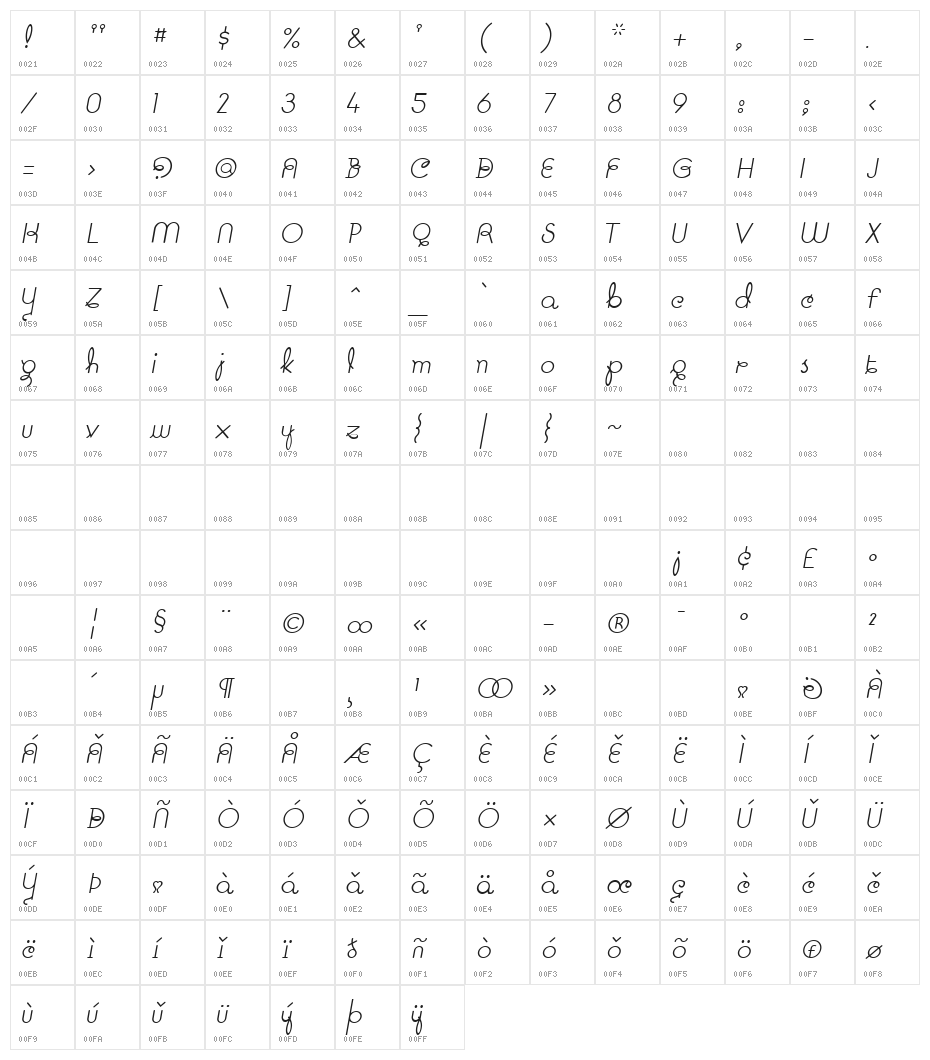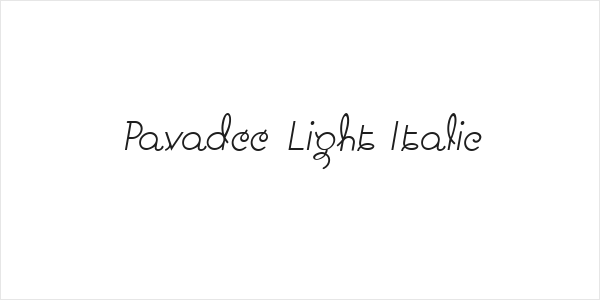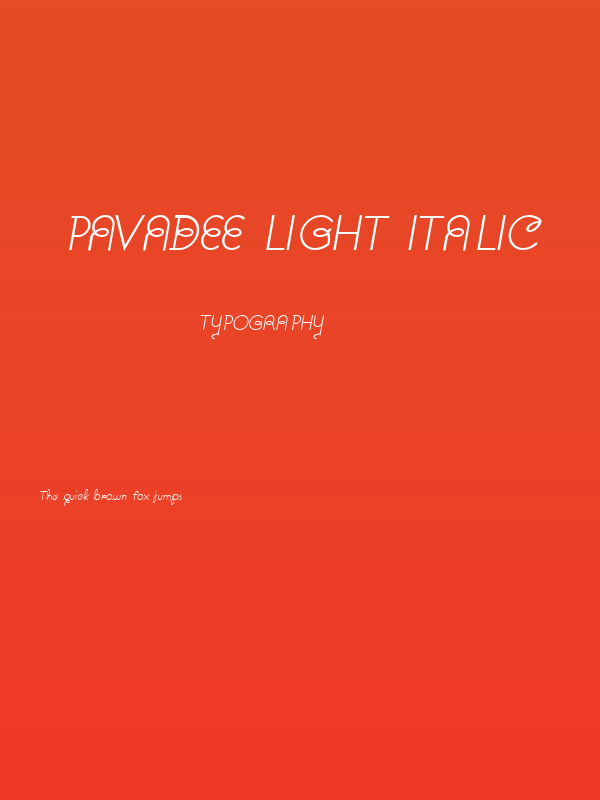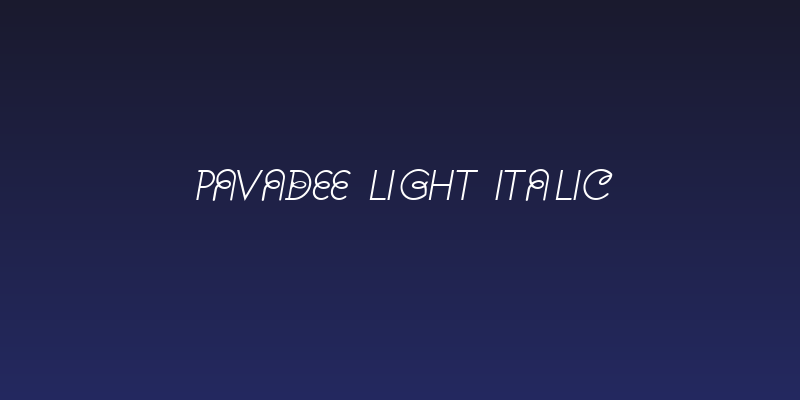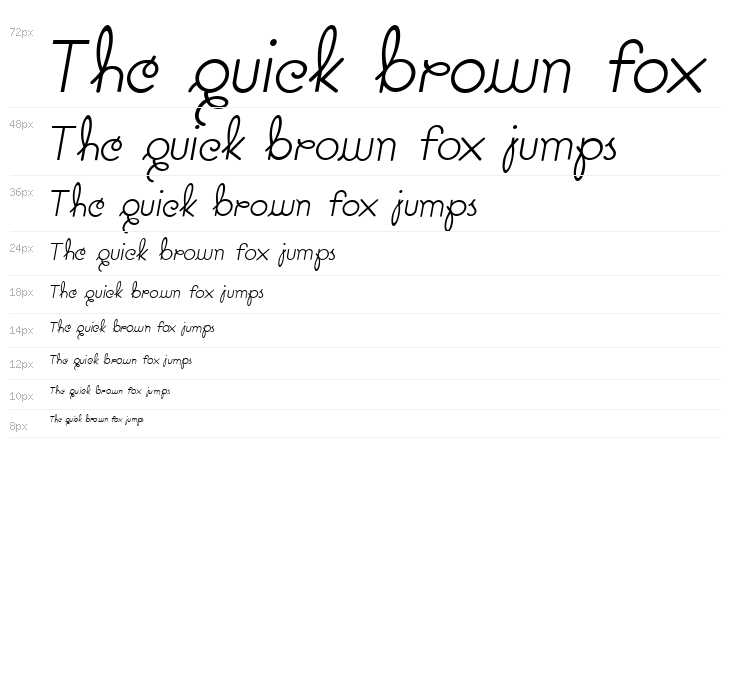
Pavadee Light Italic Font
Pavadee Light Italic Description
This font features a unique and playful design with a light and airy feel. The characters are elegantly curved, giving it a whimsical and artistic appearance. The strokes are consistent in weight, contributing to a harmonious and balanced look. The font's italic style adds a sense of motion and fluidity, making it visually engaging. The letterforms are distinct, with creative loops and swirls that enhance its decorative nature. The numbers and special characters maintain the same playful aesthetic, ensuring a cohesive look across all elements.
| Proposed Projects | Ideal for creative projects such as invitations, greeting cards, artistic posters, and branding materials that require a touch of elegance and playfulness. |